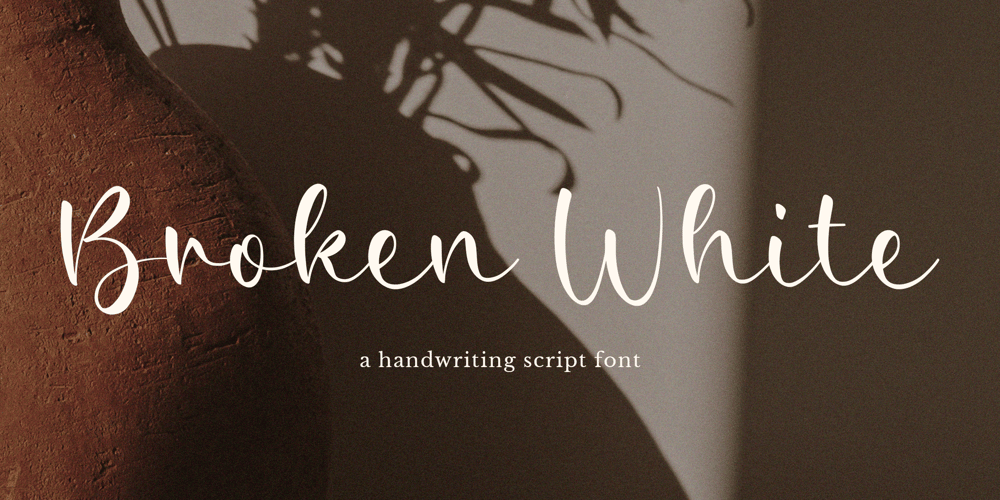
Broken White Font Family was designed by Wara Sigit Tri Pamungkas and published by Timurtype. Broken White contains 1 styles and family package options. Introducing by Timur typeProudly Present, Broken White A Handwritten FontBroken White is perfect for product packaging, branding project, megazine, social media, wedding, or just used to express words above the background.Broken White also multilingual support.Enjoy the font.Thank you!